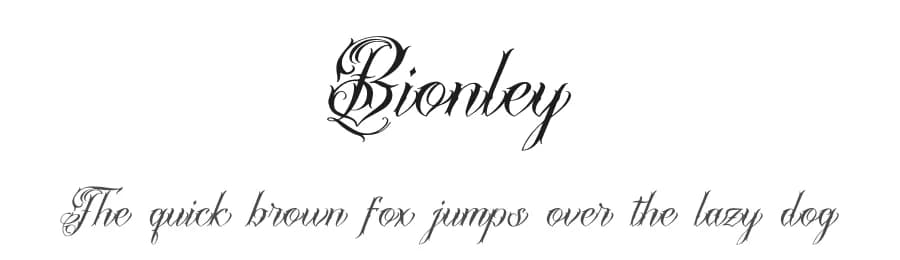
About Bionley Font
Bionley | Tattoo Script Font is suitable for any projects such as: logos, branding projects, homeware designs, product packaging, mugs, quotes, posters, shopping bags, t-shirts, book covers, name card, invitation cards, greeting cards, label, photography, watermark, special events, and all your other lovely projects that need a Tattoo Script taste.
Bionley Font is a script font that shines as a display or heading face. Pair it with a clean sans-serif or serif font for body text — the contrast creates a clear hierarchy while the two styles stay balanced and easy to read.
Bionley Font